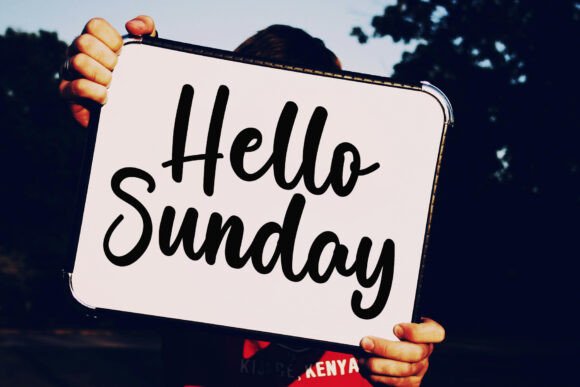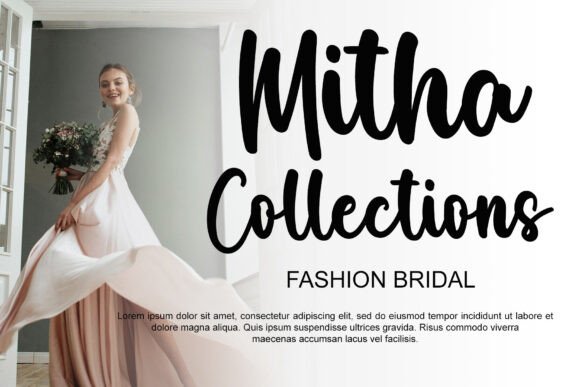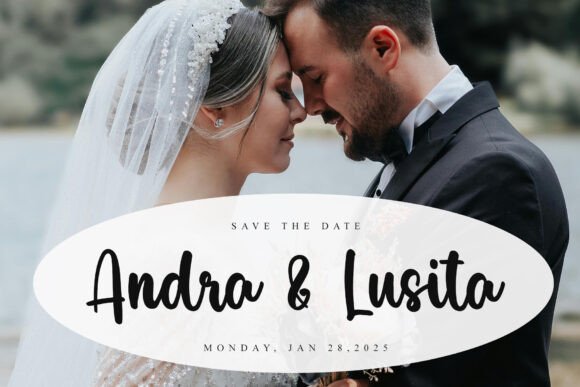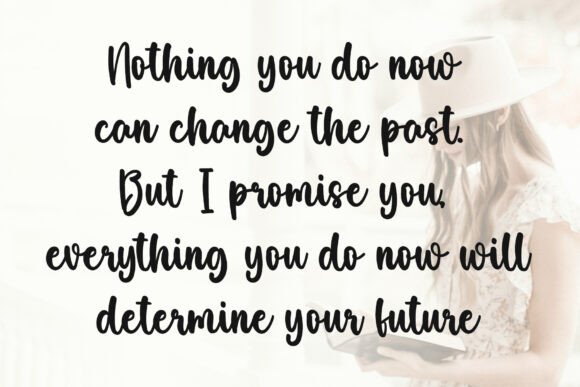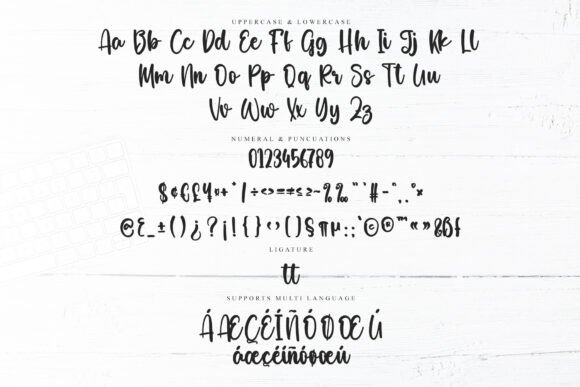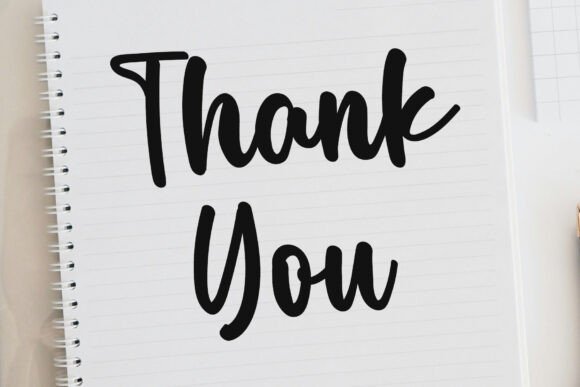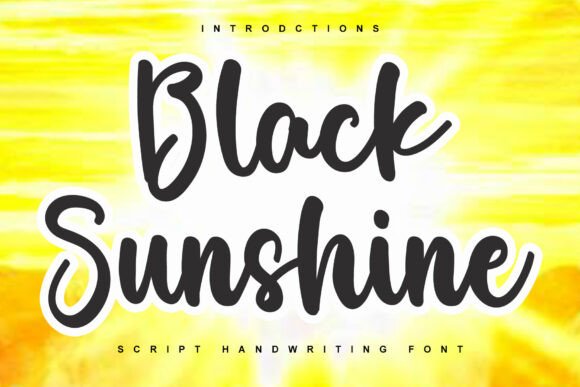
Introducing Black Sunshine Font: The Perfect Holiday Companion for Designers and Crafters
The holiday season is upon us, and with it comes the need for festive and merry designs that capture the spirit of the season. Whether you’re a designer, crafter, or DIY enthusiast, finding the right font to convey the cheer and magic of the holidays can be a challenge. That’s where Black Sunshine Font comes in – a decorative typeface that adds a touch of enchantment to your designs and brings a cheerful and nostalgic ambiance to your words.
What is Black Sunshine Font?
Black Sunshine Font is a unique and whimsical typeface designed to evoke the feeling of joy and festivity. With its decorative elements and playful flair, this font is perfect for creating holiday-themed projects that stand out from the crowd. From greeting cards and gift tags to holiday-themed posters and social media graphics, Black Sunshine Font is the perfect companion for designers and crafters looking to add a touch of holiday magic to their creations.
Key Features of Black Sunshine Font
- Festive and Merry: Black Sunshine Font is designed to capture the spirit of the holiday season, making it perfect for creating festive and merry designs.
- Decorative Elements: The font features decorative elements that add a touch of whimsy and playfulness to your designs.
- Whimsical Flair: Black Sunshine Font has a unique and whimsical flair that sets it apart from other typefaces.
- Perfect for Holiday Projects: This font is ideal for creating holiday-themed projects, including greeting cards, gift tags, posters, and social media graphics.
Why Choose Black Sunshine Font?
With so many fonts to choose from, why should you choose Black Sunshine Font for your holiday designs? Here are just a few reasons:
- Unique and Eye-Catching: Black Sunshine Font is a one-of-a-kind typeface that will make your designs stand out from the crowd.
- Versatile: Black Sunshine Font can be used for a variety of holiday-themed projects, from greeting cards to social media graphics.
- Nostalgic Ambiance: This font brings a cheerful and nostalgic ambiance to your words, making it perfect for creating holiday designs that evoke a sense of warmth and nostalgia.
- Pair with Other Fonts: Experiment with pairing Black Sunshine Font with other fonts to create unique and eye-catching designs.
- Experiment with Colors: Try using different colors and textures to add depth and interest to your designs.
Tips and Inspiration for Designers and Crafters
Looking for inspiration for your holiday designs? Here are a few tips and ideas to get you started:
- Create Festive Greeting Cards: Use Black Sunshine Font to create festive and merry greeting cards for your loved ones.
- Design Holiday Gift Tags: Add a touch of whimsy and playfulness to your gift tags with Black Sunshine Font.
- Make Holiday-Themed Posters: Use this font to create eye-catching holiday-themed posters for your business or personal use.
- Social Media Graphics: Create festive and engaging social media graphics with Black Sunshine Font.